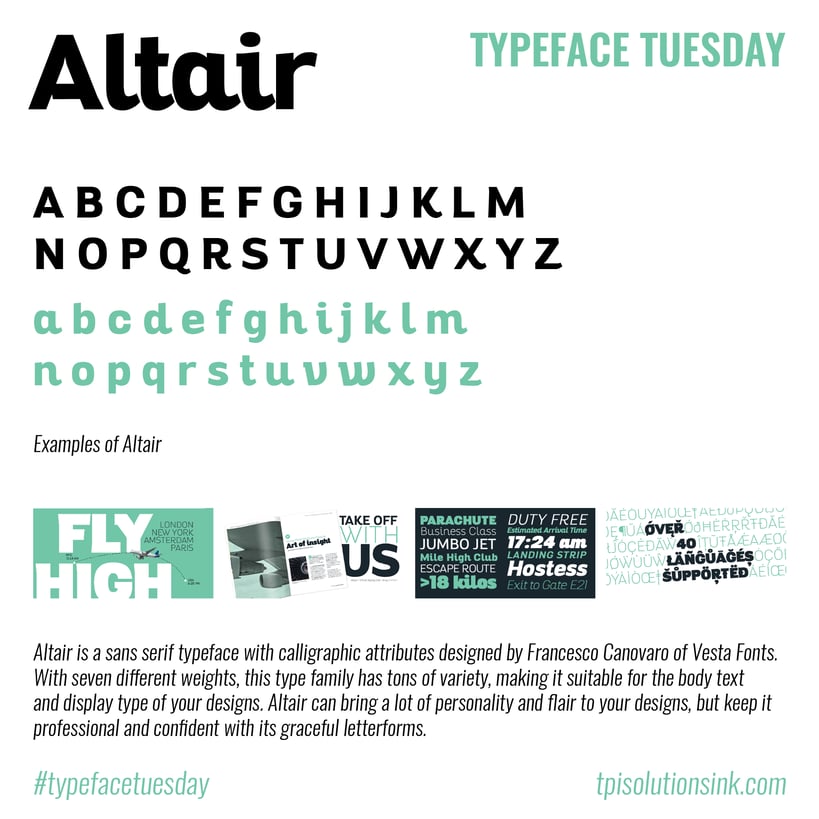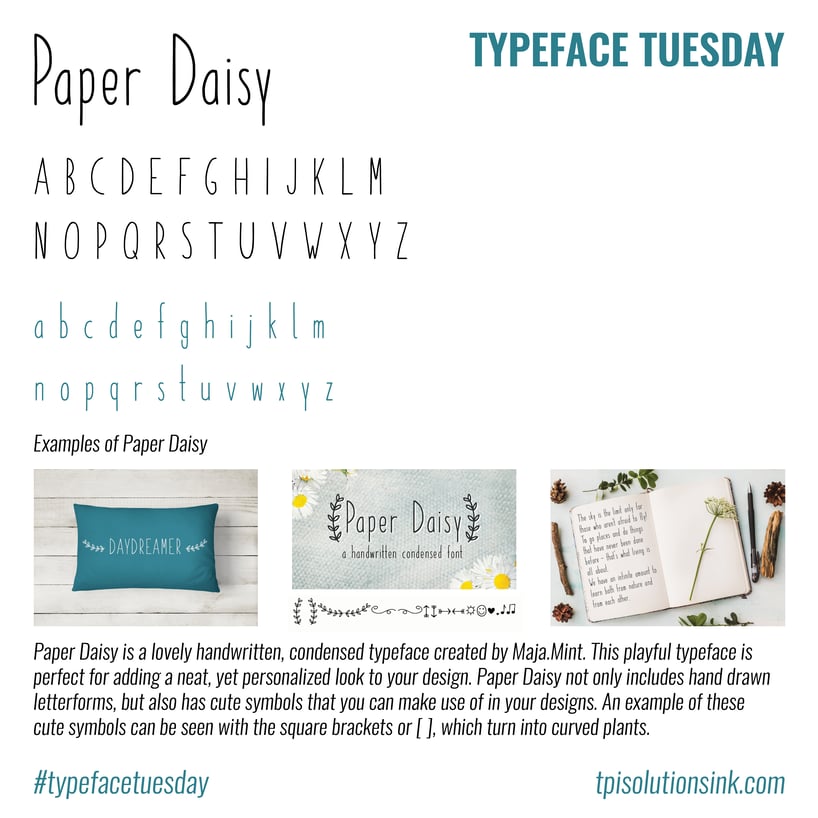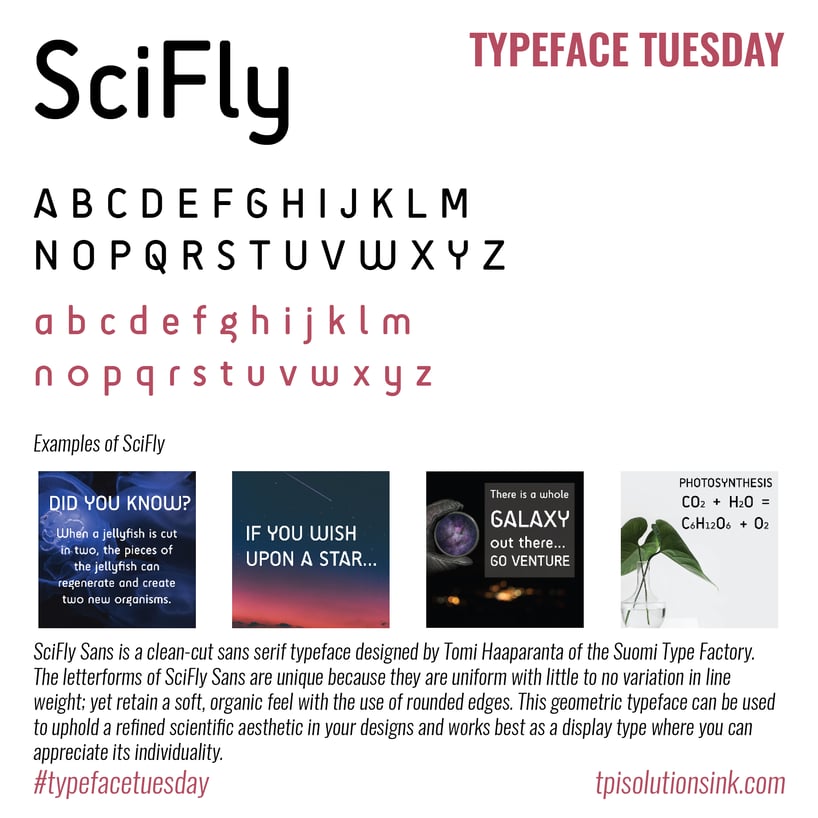
Which was your favorite typeface of May?
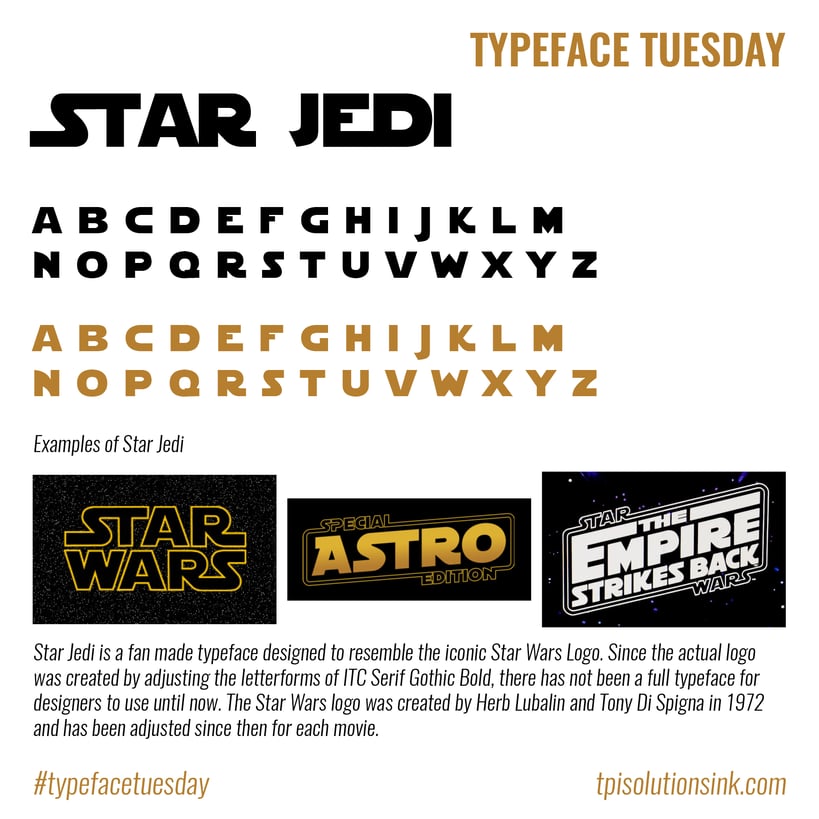
You can find this classy sans serif typeface here!
Paper Daisy is my favorite from this month! You can find it here.